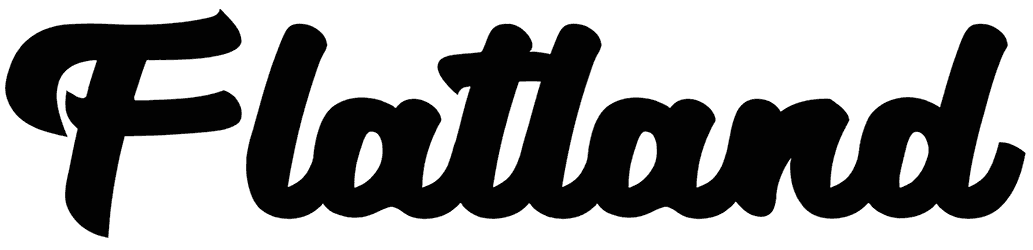
Flatland Font
Do you want to have a modern and stylish design with a natural face? You can easily create such a mood by using a script font like Flatland. This unique item with its captivating bold style is capable of illustrating words of your coming projects like banners, postcards, branding, apparel, and many more others the same.